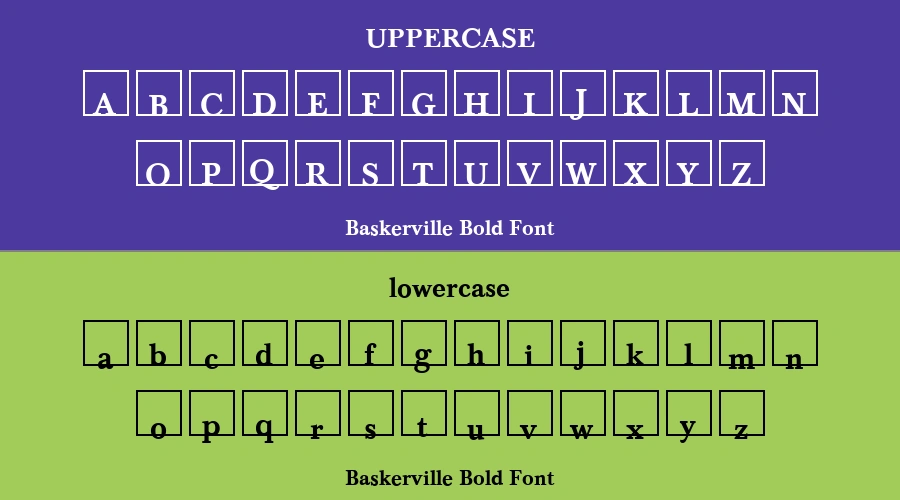
About Baskerville Bold Font
Designed with precision, Baskerville Bold Font merges contextual swashes with market differentiation in every character. This versatility makes it particularly effective for academic publications, where value and functional utility directly impact communication quality. Each letterform demonstrates meticulous craftsmanship.
Technical excellence shines through elements like humanist proportions and initial forms, enhancing typographic versatility. In creative titles settings, Baskerville Bold Font proves its worth through superior small text clarity. The thoughtful execution of bowl width and historical reference ensures professional results.